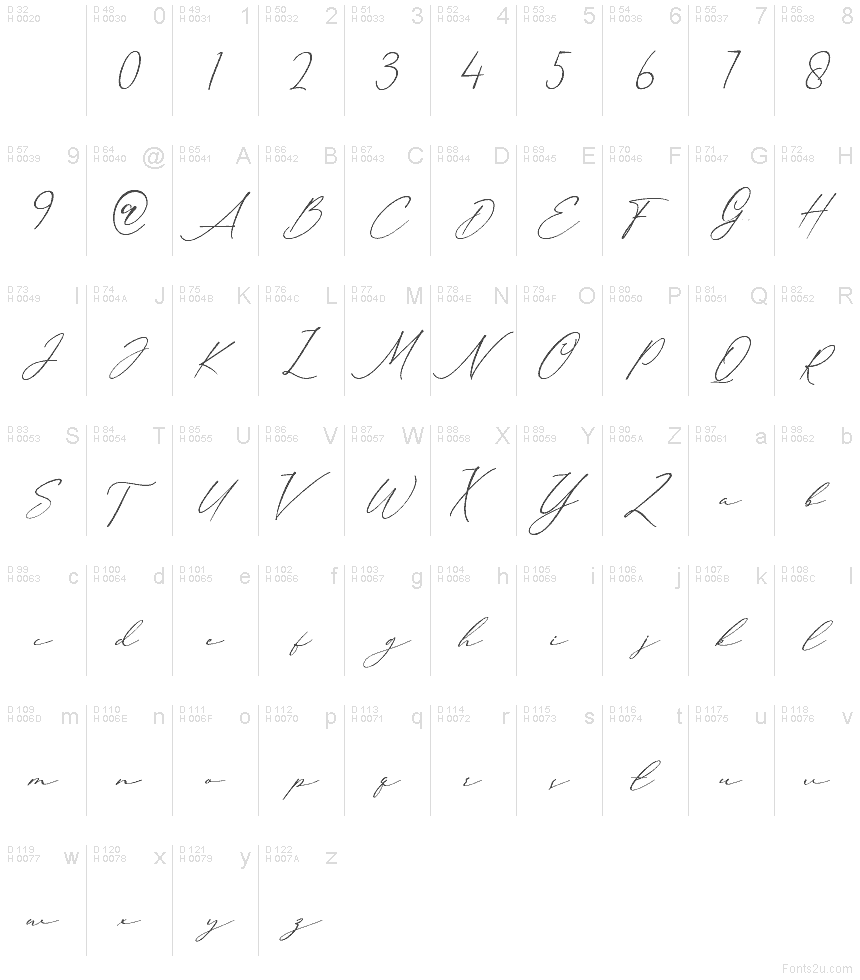
Angelica Signature
Angelica Signature font by Ahmad Muslimin is a free handwritten signature typeface that looks like it’s been swept onto the page with a fine ink pen. Its lines are whisper-thin yet confident, with long, relaxed strokes that trail off like real handwriting on smooth paper. The rhythm feels organic and unhurried, giving logos, names, and short phrases a bespoke, human touch that’s hard to fake.
Using Angelica Signature, you can instantly dress up wedding stationery, boutique branding, product packaging, social media graphics, photography watermarks, and lifestyle blog headers. This free font shines when it’s given space to breathe and set large, so let those elegant curves stretch across the page. For a polished look, pair Angelica Signature with a clean sans serif for body text to balance its airy, handwritten flair.